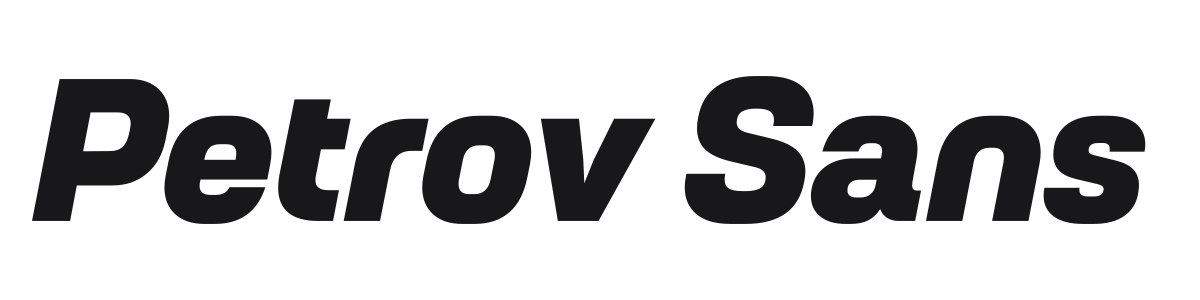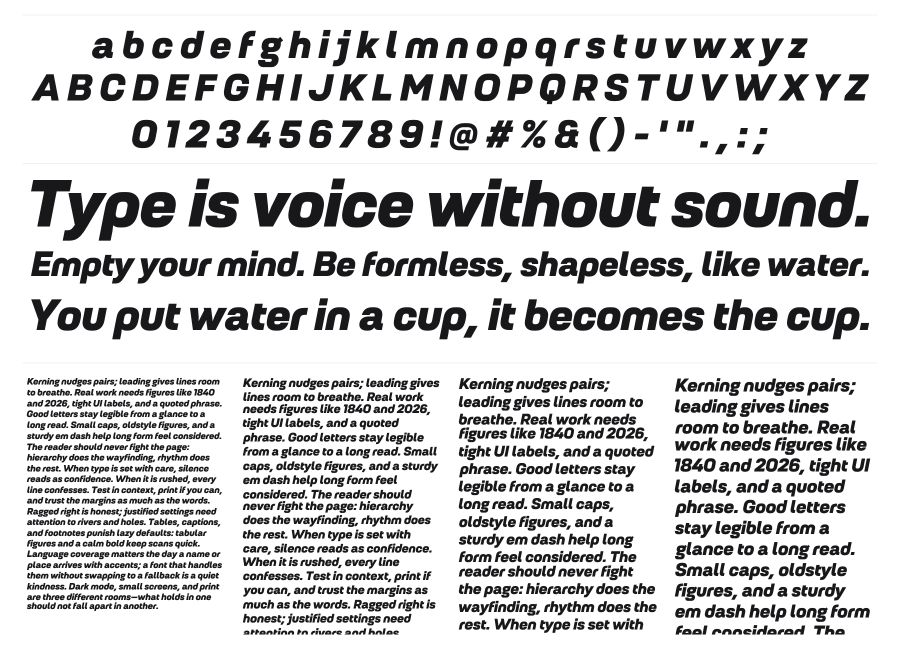
Petrov Sans
by Fontfabric · Website
Petrov Sans is a geometric sans-serif family with a heavy, confident presence and wide proportions. Its near-monoweight strokes and clean geometry give it a strong, contemporary feel that holds up well at large display sizes. With 9 uprights and 9 italics, the family offers serious range for brand systems and editorial work.